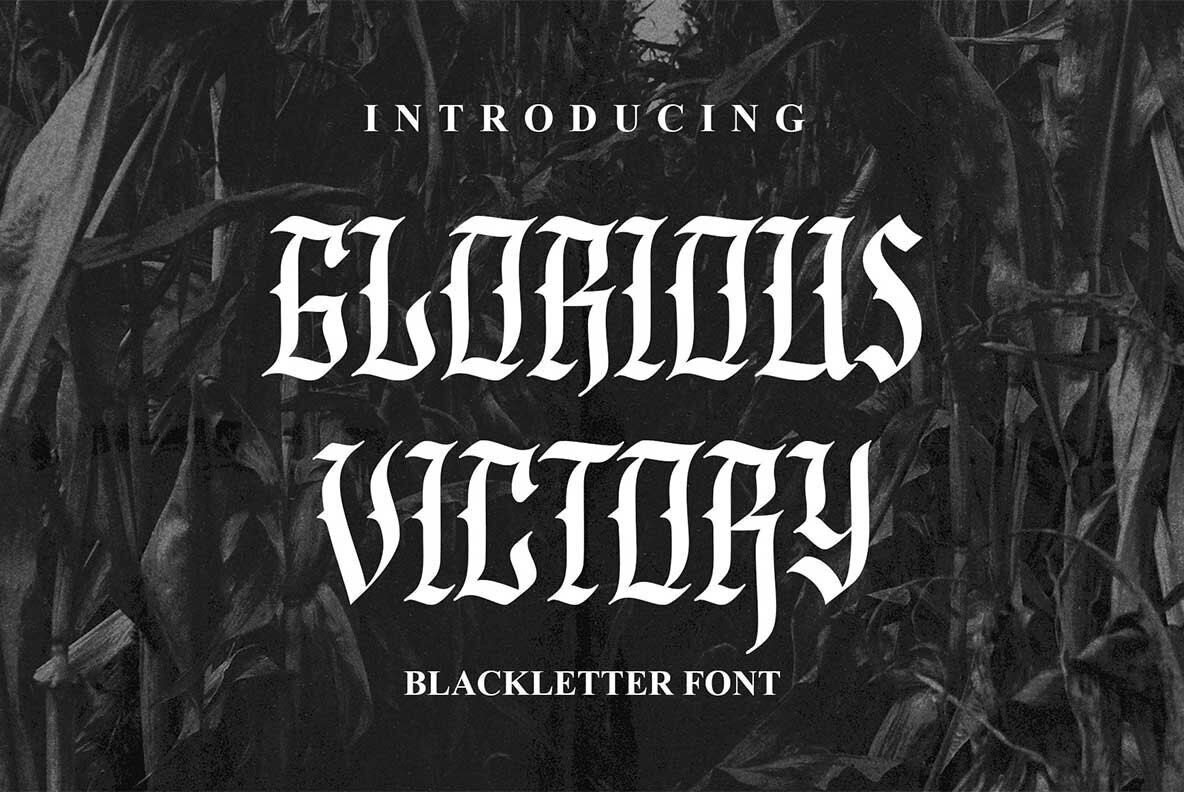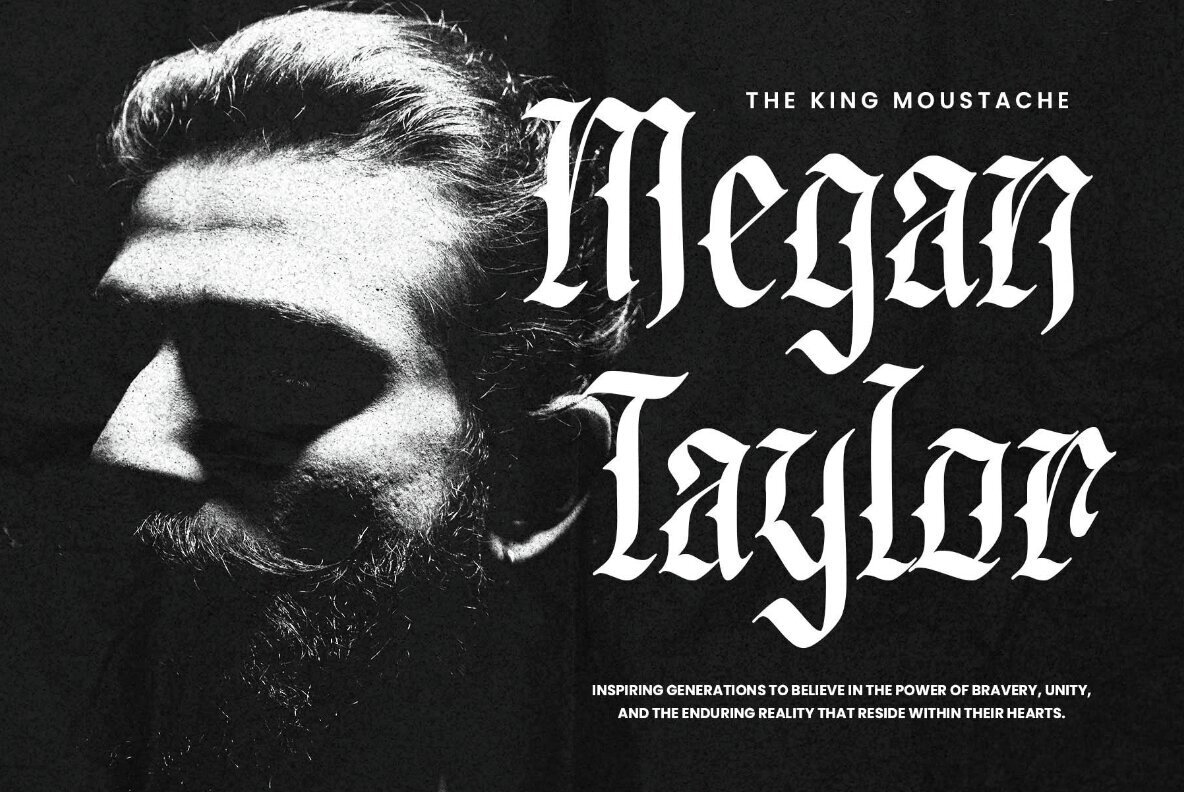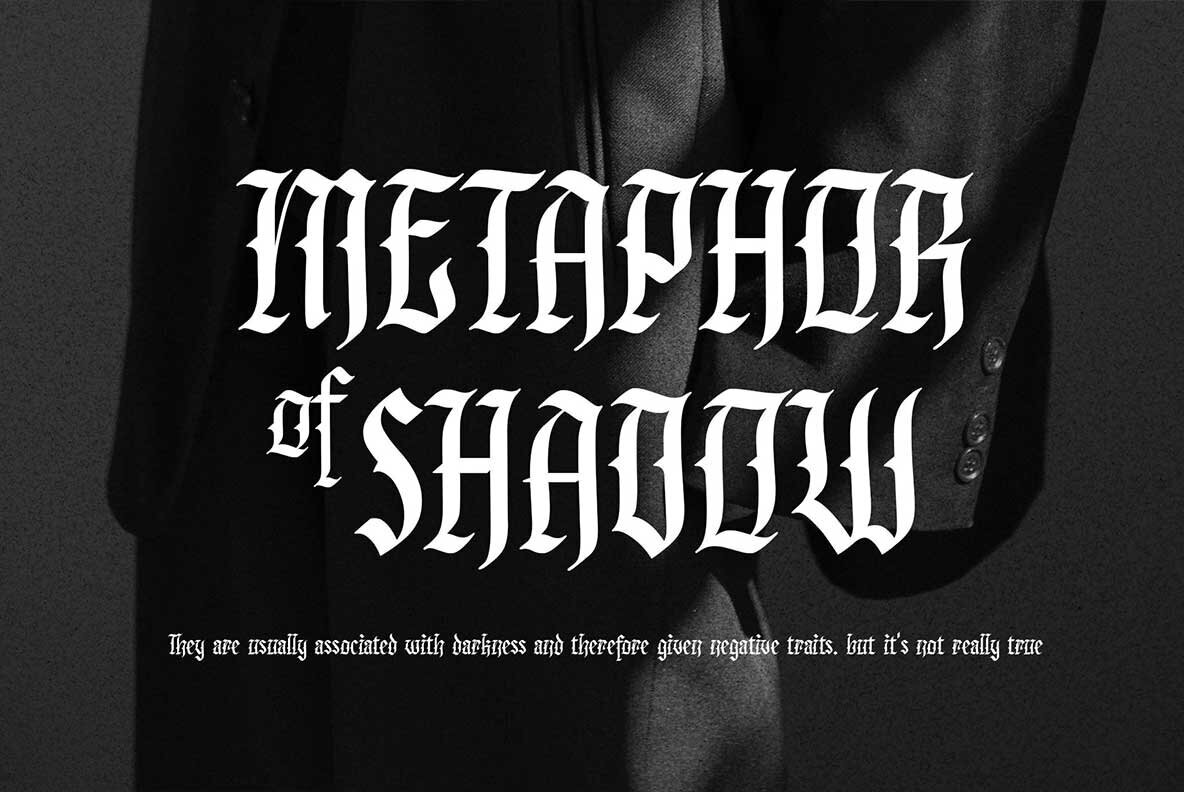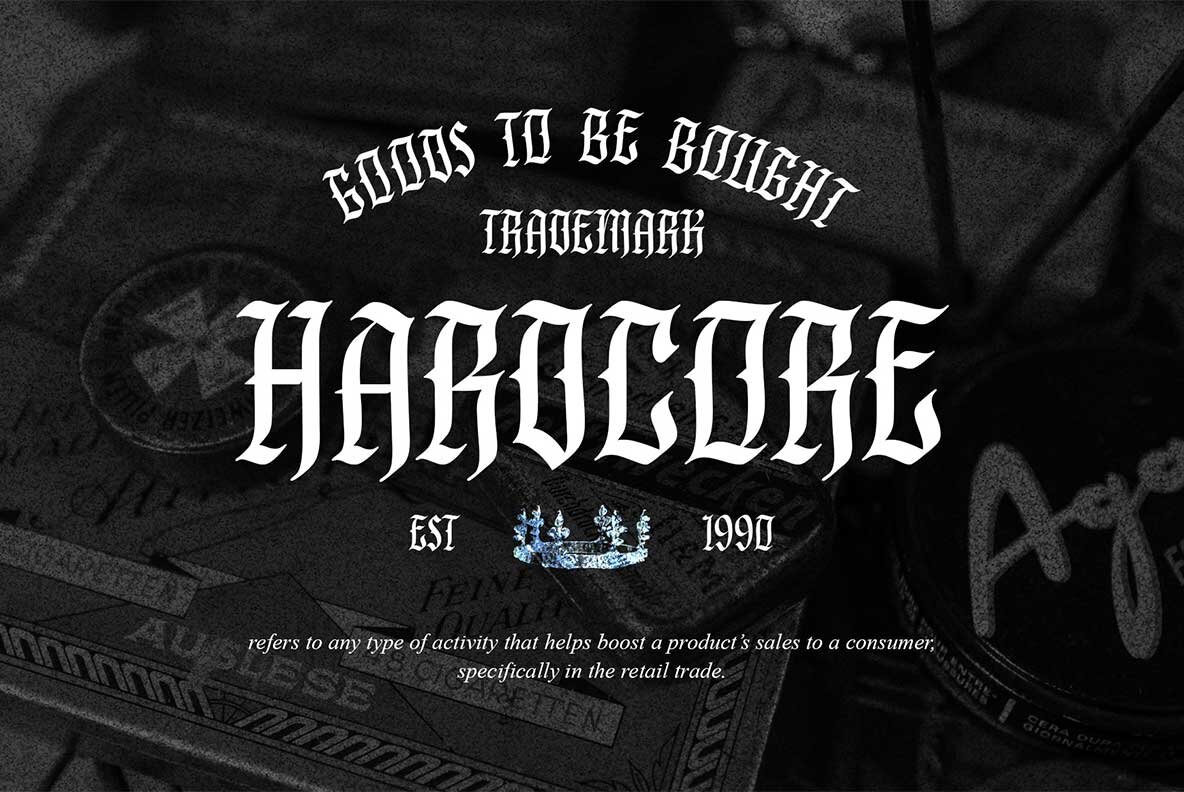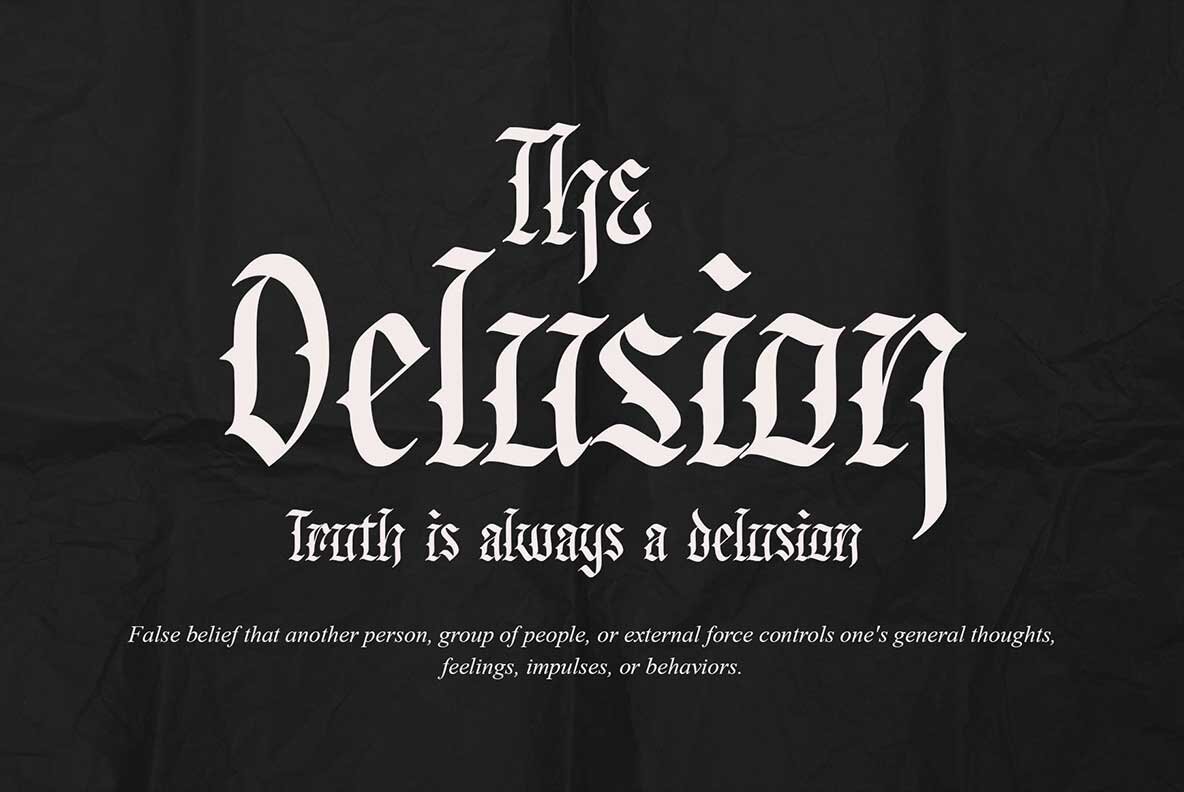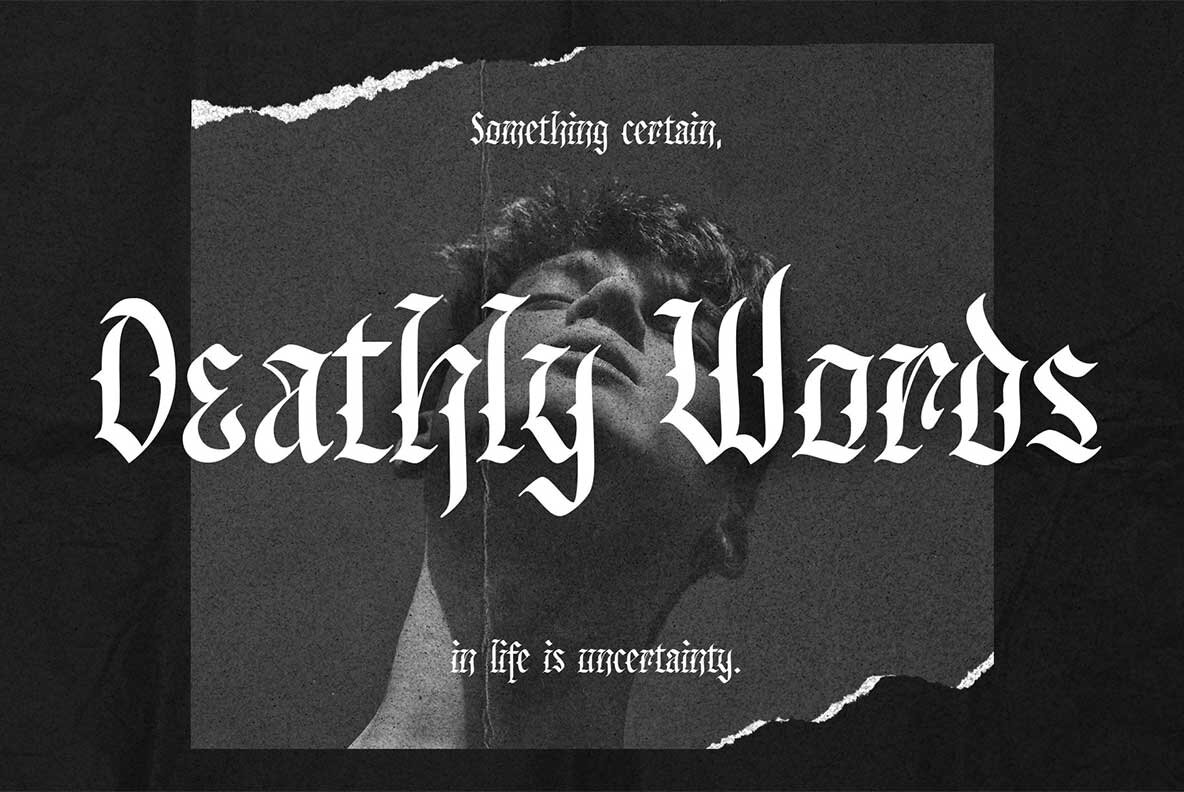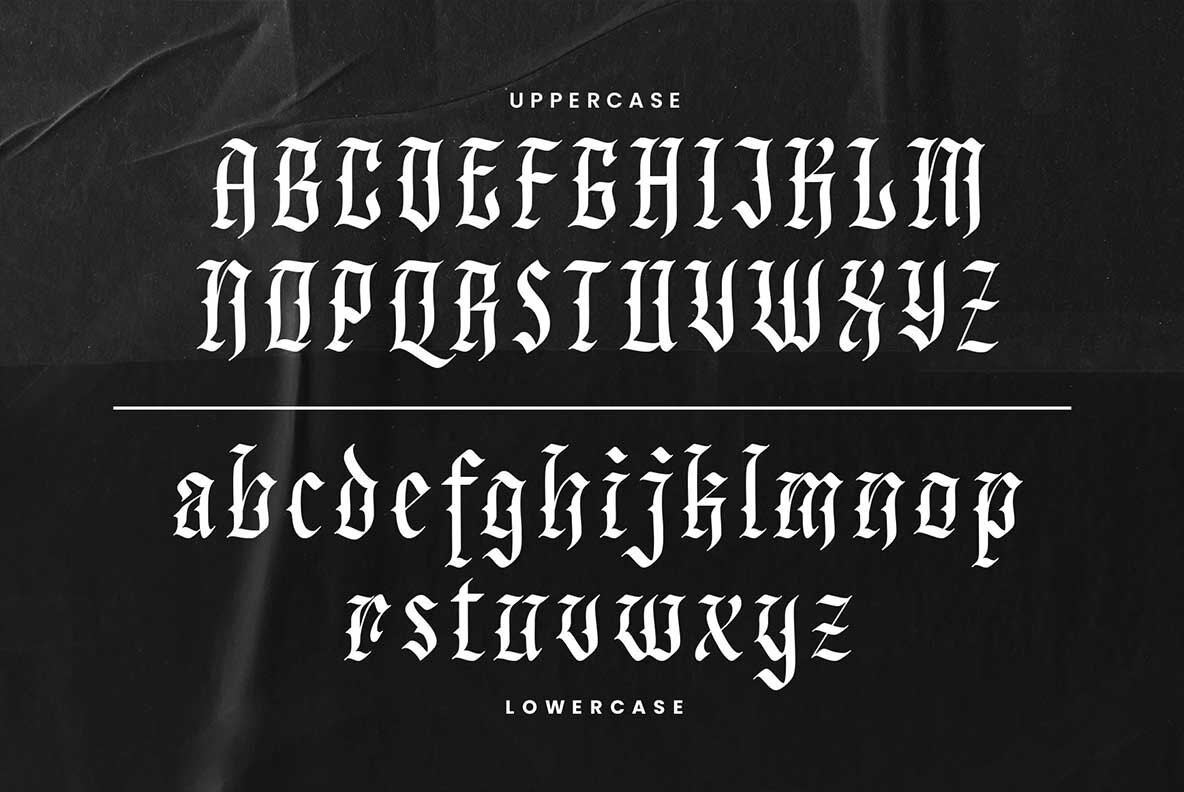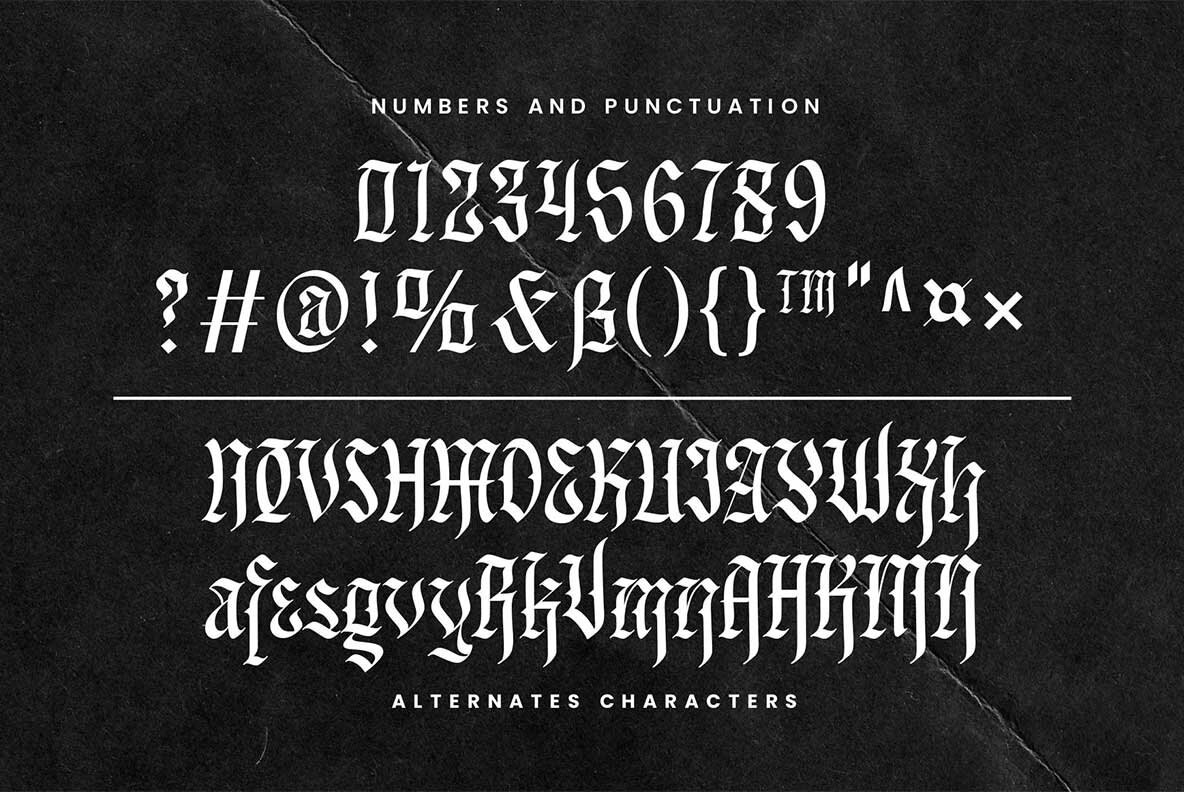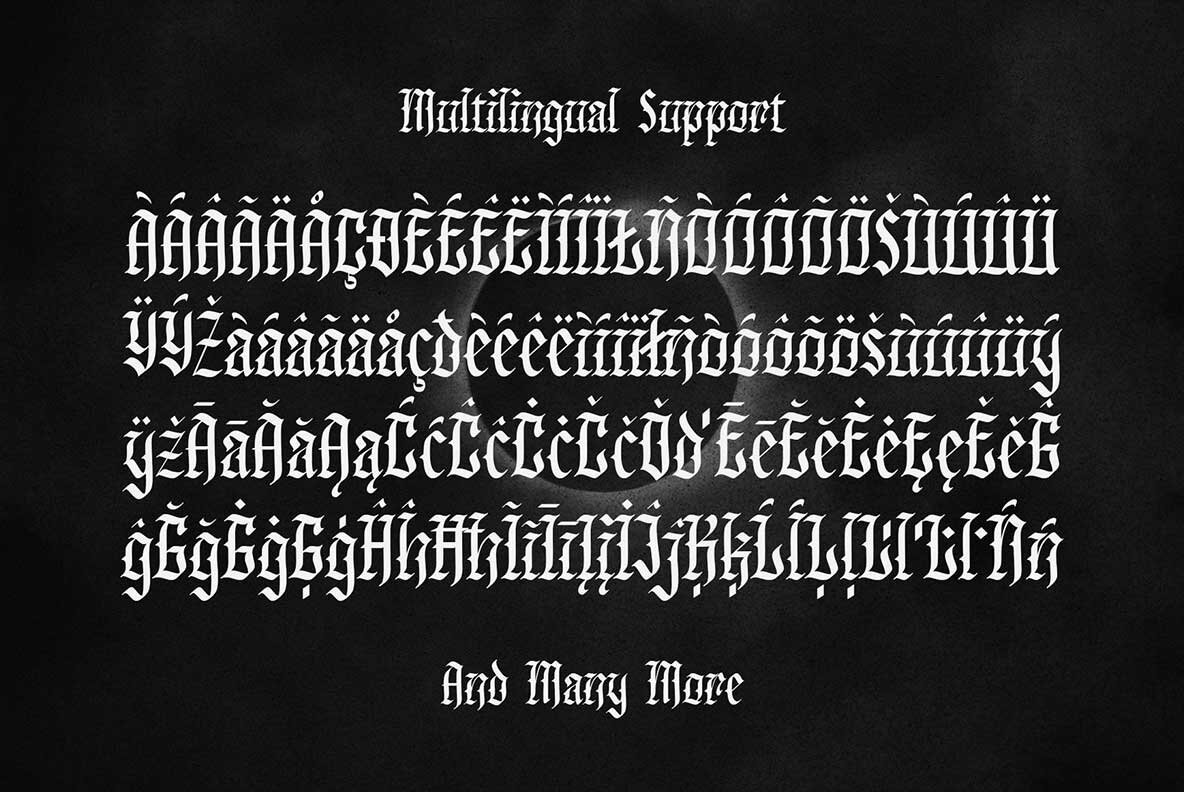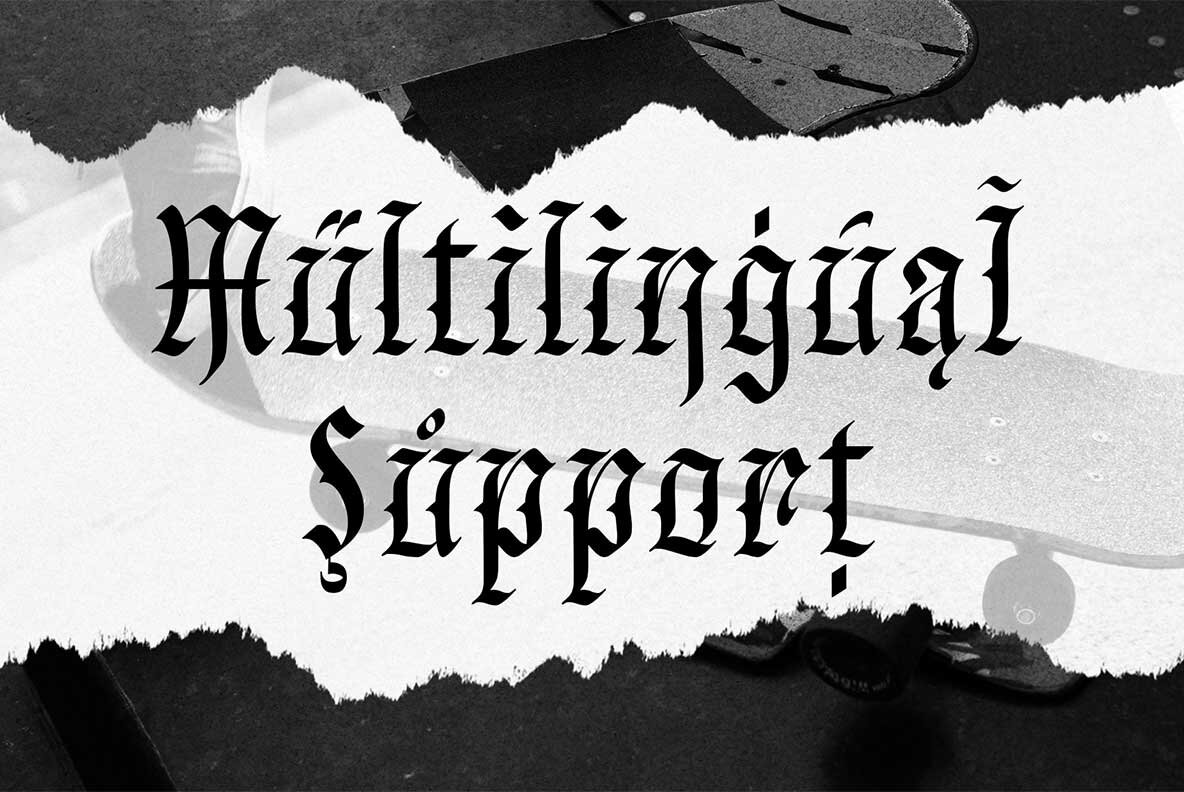
Glorious Victory Font
Glorious Victory Regular
Glorious Victory is a blackletter font that expertly merges Fraktur and Old English influences for a sophisticated, gothic appearance. Its ornate details suit a variety of creative projects, from film titles and posters to apparel, labels, and branding. Designed for those who appreciate bold expression, Glorious Victory draws inspiration from underground culture, lending each project an air of strength and conviction. This font is an excellent choice for gothic, horror, and youthful themes where impactful aesthetics matter. Special characters and stylistic alternates offer versatility, allowing designers to introduce unique variations that enhance visual storytelling.Glorious Victory Blackletter Font